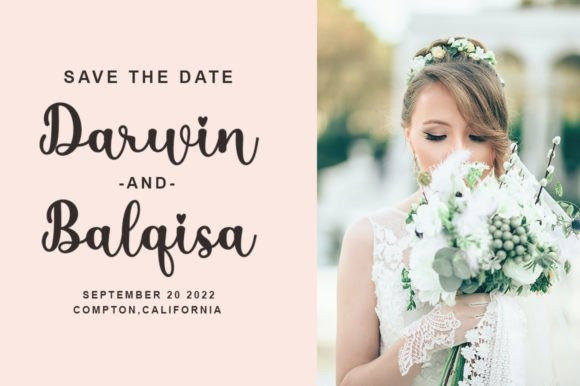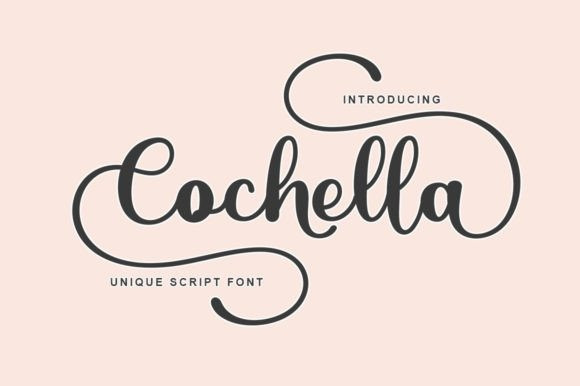
Cochella Font
Cochella Calligraphy Font is a lovely and sweet handwritten font. This gentle font will look gorgeous on a variety of design ideas. It will add a joyful and romantic touch to each of your projects!